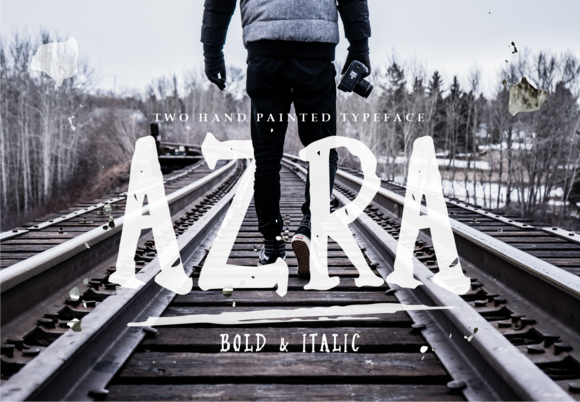
I still remember the frustration of working on a project, hours spent crafting the perfect design, only to realize that the font I chose just wasn’t cutting it. The client wanted something with a bit of an edge, something that would give their brand a tough, rugged look. I scoured the internet, tried out font after font, but nothing seemed quite right. That was until I stumbled upon Azra, a rough-edged brush font that would change the game.
Azra Font: A Rough-Edged Beauty
Azra is a hand-crafted paint brush font that adds loads of personality to your design. It comes in two versions: Azra Regular and Azra Italic. This font is perfect for designers, crafters, and creative hobbyists looking to add a touch of ruggedness to their work.
What I Love About Azra ✨
• 💯 Unique, rough-edged brush strokes that give your design a one-of-a-kind look
• ✅ Easy to read, even in smaller sizes
• 🎨 Highly versatile, works well for a variety of design projects, from logos to posters
• 🕒 Works great for both digital and print designs
While Azra is an amazing font, it’s not without its quirks. For example:
• ⚠️ Some letters may appear a bit inconsistent in terms of stroke width, which can be a bit distracting if you’re used to more uniform fonts
• 🤔 Limited use for very formal or corporate designs, as it leans more towards a casual, rugged look
The Designer Behind Azra: A Backstory
While the true story behind Azra’s creation may be unknown, it’s easy to imagine a designer who was inspired by the streets, the urban landscape, and the world of graffiti. Perhaps they wanted to create a font that captured the raw energy and emotion of these art forms, and Azra was born.
Q: Is Azra suitable for body text?
A: While Azra is a beautiful font, it’s best used for headlines, titles, and short paragraphs. For longer body text, you may want to choose a more traditional font.
Q: Does Azra come with any additional features?
A: Yes, Azra comes with a range of OpenType features, glyphs, and stylistic alternates that allow you to customize your text.